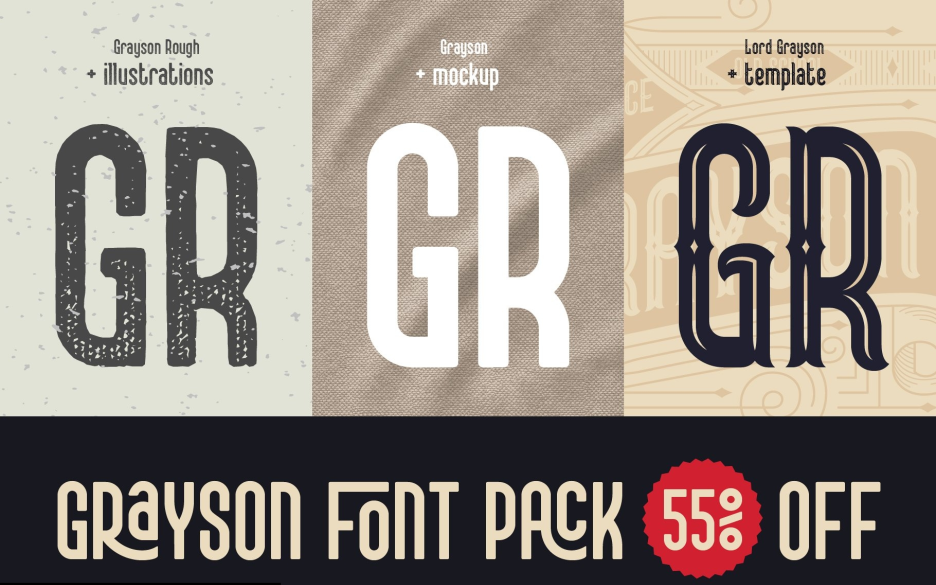
Grayson Font Pack
The Grayson Font Pack offers a versatile collection of typefaces designed to elevate your creative projects. This pack includes a variety of styles, from elegant serifs to modern sans-serifs, ensuring you have the perfect font for any occasion.
• Multiple font styles: serif, sans-serif, and display fonts
• Various weights for each style, including light, regular, bold, and extra bold
Each font in the Grayson pack is crafted with precision, providing clear readability and aesthetic appeal. Ideal for both print and digital applications, these fonts are perfect for branding, logos, web design, and user interfaces.
• Combine different styles within the pack for a cohesive brand identity
• Utilize bold weights for headlines and lighter weights for body text